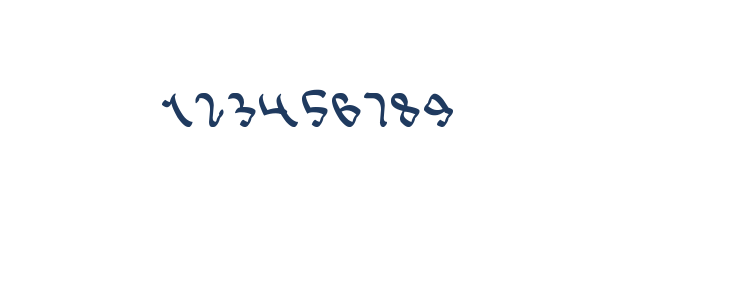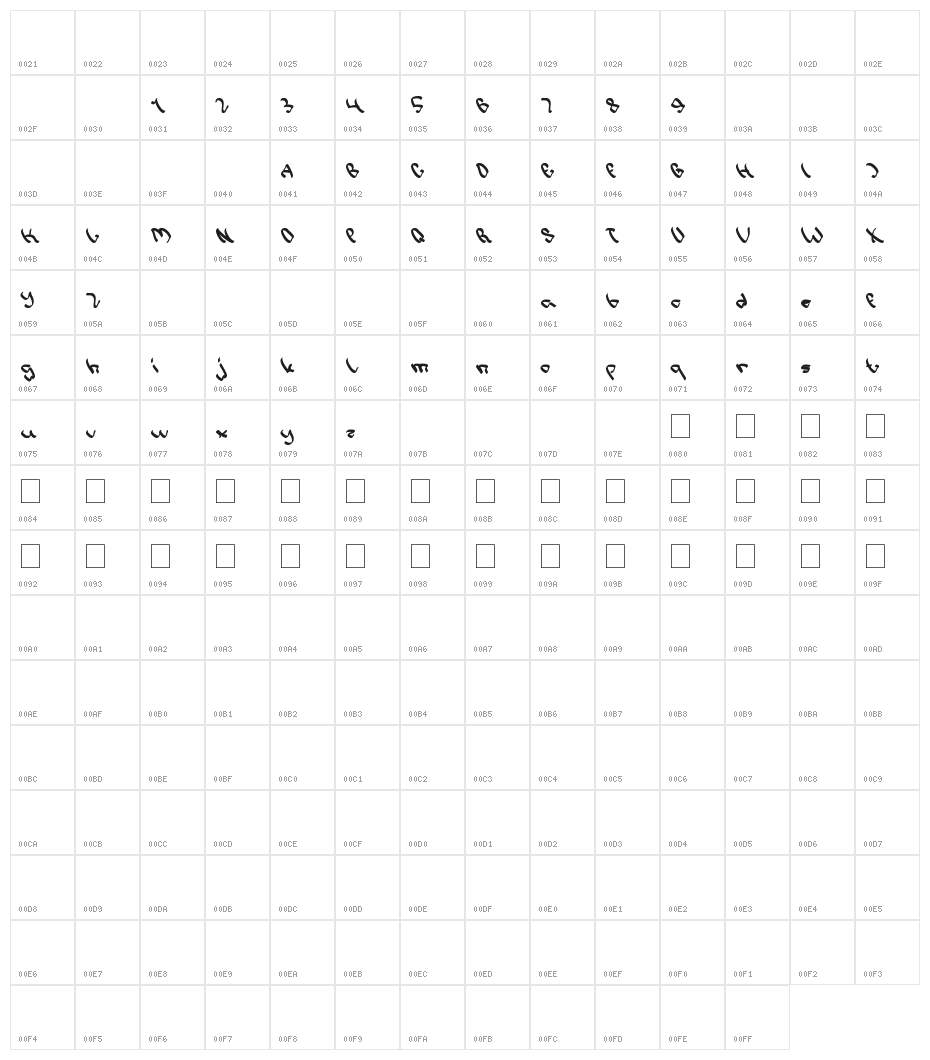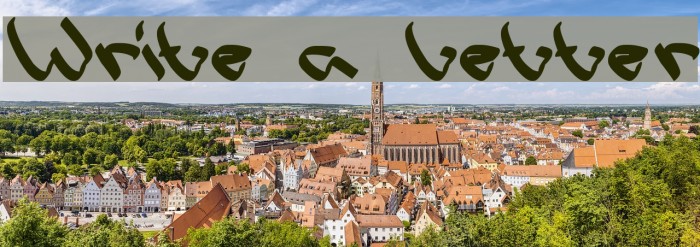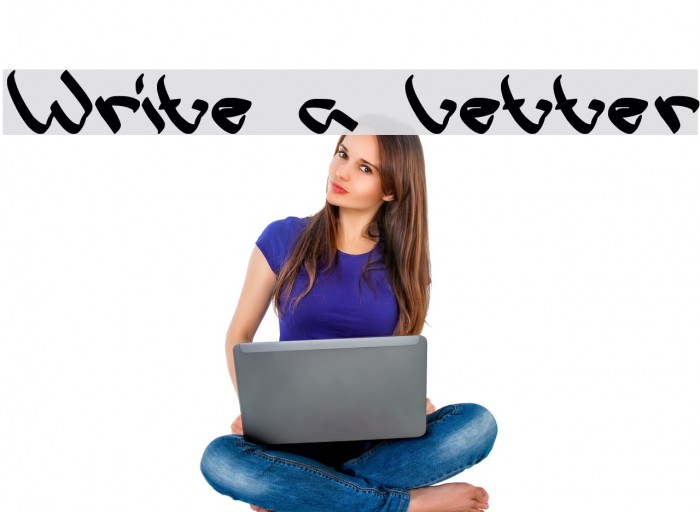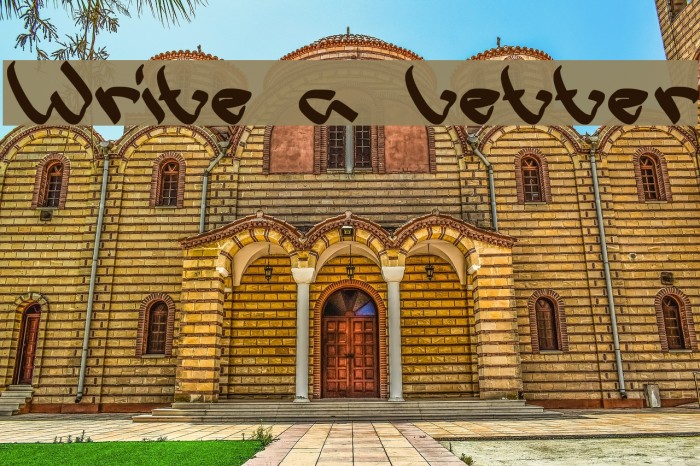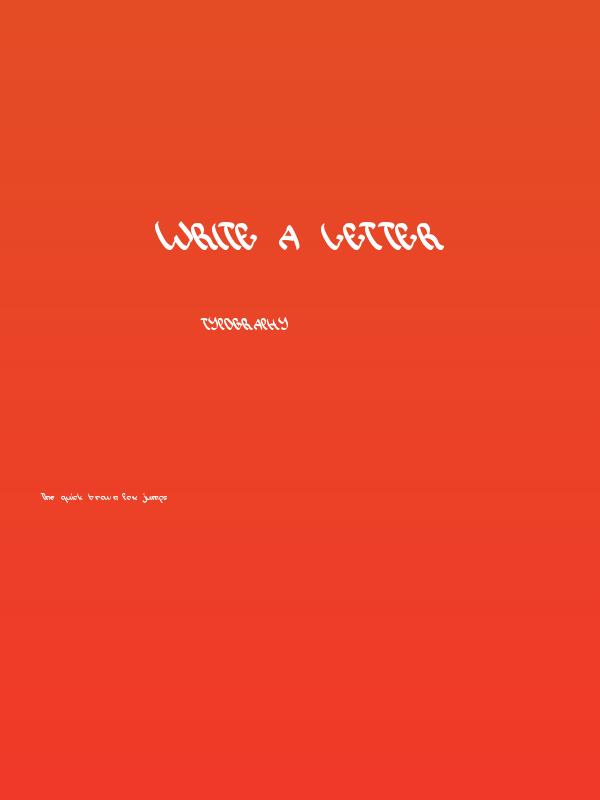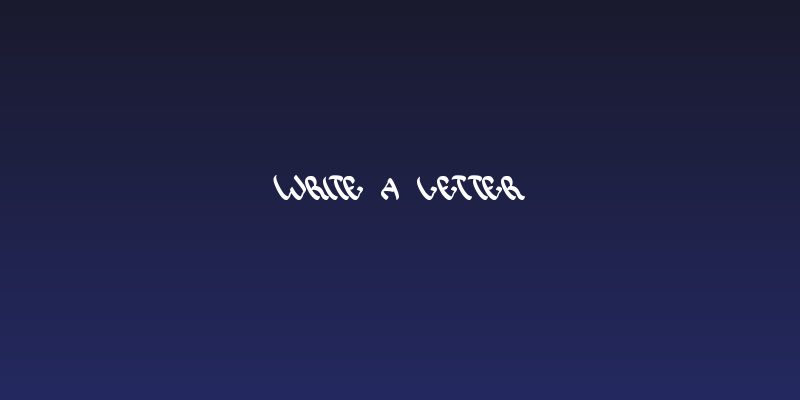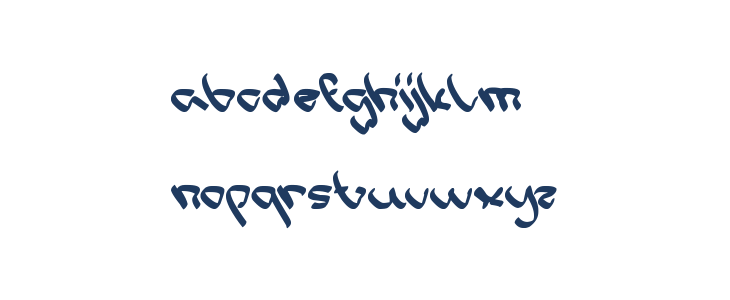
Write a Letter Font
Write a Letter Description
This font features a unique and artistic style with a handwritten appearance. The characters are bold and slightly slanted, giving them a dynamic and energetic feel. The strokes are thick and consistent, with a playful and whimsical touch. The uppercase and lowercase letters maintain a cohesive design, while the numbers and special characters complement the overall aesthetic. This font is perfect for projects that require a personal and creative touch, such as invitations, greeting cards, or artistic branding.
| Use Case | Logos, Headlines, Artistic projects |
| Proposed Projects | Ideal for creative projects like invitations, greeting cards, artistic branding, and personal stationery. |